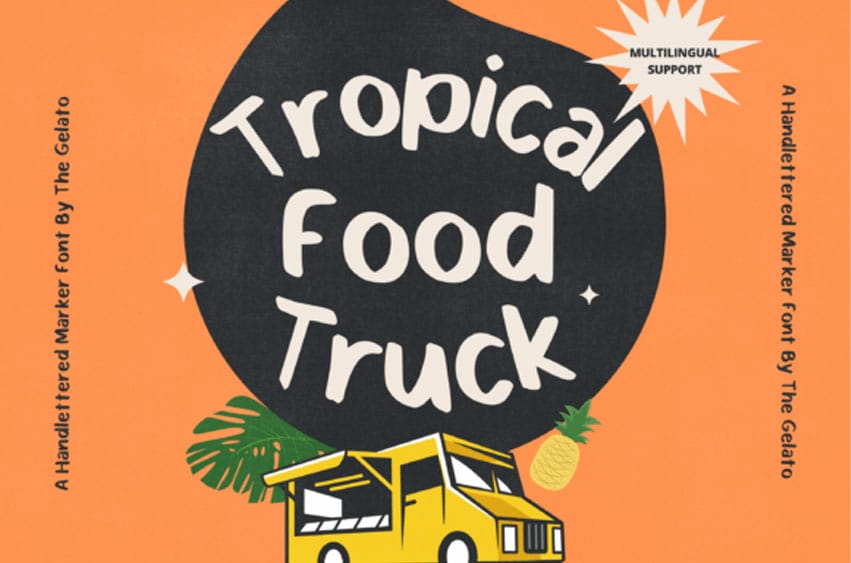
Tropical Food Truck Font a stunning script font, designed to bring uniqueness to any project.
With its graceful curves and intricate flourishes, this font adds a touch of luxury to everything from crafts to product packaging.